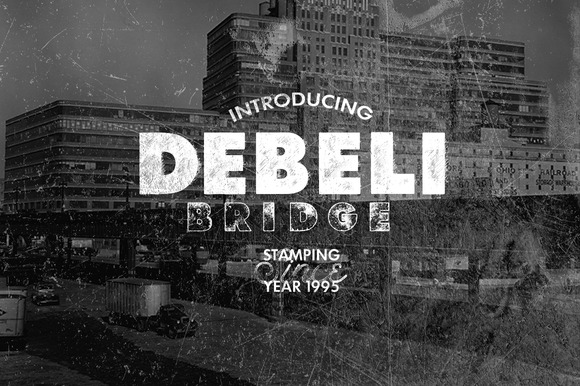
Debeli Font: The Ultimate Old-School Textured Typeface for Vintage and Retro Designs
Are you a designer or crafter looking for a unique and authentic font to give your creative projects a vintage or retro touch? Look no further than Debeli Font, an old-school textured typeface that’s perfect for a wide range of applications. In this article, we’ll explore the features and benefits of Debeli Font, and show you how it can elevate your designs to the next level.
A Brief Introduction to Debeli Font
Debeli Font is a grunge/stamped style typeface that’s designed to resemble classic, distressed prints from the past. With its rough, textured appearance, this font is instantly recognizable as a nostalgic nod to bygone eras. Whether you’re creating vintage-inspired posters, retro-style logos, or distressed-look packaging, Debeli Font is the perfect choice.
Key Features of Debeli Font
So, what makes Debeli Font so special? Here are just a few of its key features:
• Two Grunge/Stamped Style Typefaces: With Debeli Font, you get not one, but two unique grunge/stamped style typefaces to choose from. This gives you the flexibility to experiment with different looks and find the perfect fit for your project.
• Old-School Textured Appearance: Debeli Font’s textured appearance is reminiscent of classic prints from the past. Its rough, distressed look adds a level of authenticity to your designs that’s hard to replicate with modern fonts.
• Versatile: Debeli Font is incredibly versatile, and can be used for a wide range of applications, from headings and logos to invitations and t-shirt designs.
Use Cases for Debeli Font
So, what can you use Debeli Font for? The possibilities are endless! Here are just a few ideas to get you started:
• Headings and Logos: Use Debeli Font to create bold, eye-catching headings and logos that make a statement.
• Invitations: Add a touch of vintage charm to your invitations with Debeli Font’s distressed-look style.
• T-Shirt Designs: Debeli Font is perfect for creating unique and memorable t-shirt designs that stand out from the crowd.
• Greeting Cards: Add a personal touch to your greeting cards with Debeli Font’s textured, old-school appearance.
• Posters: Create eye-catching posters that grab attention with Debeli Font’s bold, grunge/stamped style.
• Labels and Book Covers: Use Debeli Font to create labels and book covers that look like they’ve been plucked straight from a vintage library.
• Brochures: Add a touch of retro charm to your brochures with Debeli Font’s distressed-look style.
Why Choose Debeli Font?
So, why should you choose Debeli Font for your next project? Here are just a few reasons:
• Unique and Authentic: Debeli Font’s textured, distressed-look style is instantly recognizable as a nostalgic nod to bygone eras.
• Versatile: Debeli Font can be used for a wide range of applications, from headings and logos to invitations and t-shirt designs.
In conclusion, Debeli Font is a versatile and authentic old-school textured typeface that’s perfect for vintage and retro designs. With its two grunge/stamped style typefaces, textured appearance, and wide range of use cases, Debeli Font is an excellent choice for designers and crafters looking to add a touch of nostalgia to their creative projects. So why wait? Download Debeli Font today and start creating unique and memorable designs that stand out from the crowd!